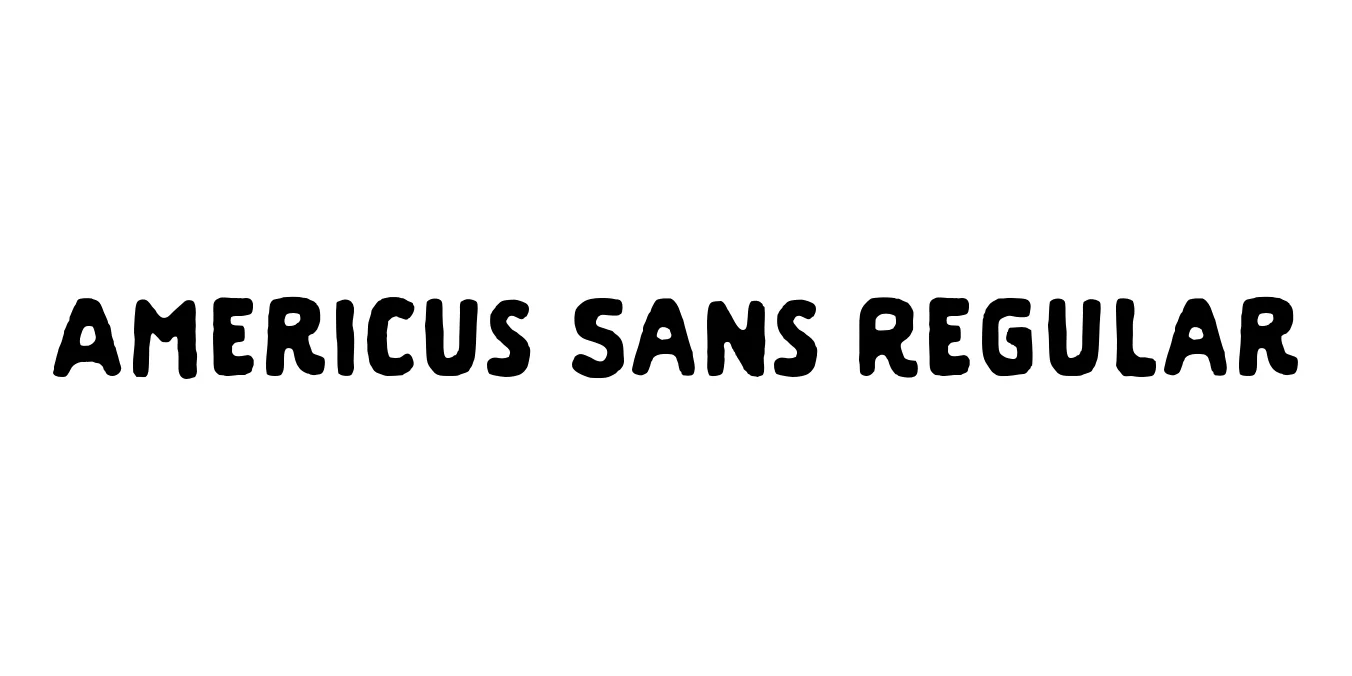
Americus Sans Regular
Designed by Vunira Design
Americus Sans Regular is a vintage-inspired typeface that captures the essence of classic American signage and heritage branding. Developed as part of the Americus Script and Sans collection, this font features clean, sturdy proportions with a slightly weathered, nostalgic feel. It is designed to work seamlessly alongside its script counterpart, offering a bold yet approachable typographic solution for projects requiring a touch of timeless craftsmanship and authenticity.
The font's versatility makes it a favorite for branding, packaging, and editorial design. Its well-spaced characters and balanced weights ensure legibility across both digital and print mediums. Whether used for retro logos or modern minimalist layouts, Americus Sans Regular provides a distinct character that evokes a sense of tradition and reliability, making it an essential tool for designers seeking a sophisticated vintage aesthetic.
Americus Sans Regular Best Uses
Ideal for creating iconic and memorable brand identities with a vintage touch.
Perfect for artisan goods, beverages, and heritage-style products.
Great for t-shirt graphics and streetwear labels looking for a classic look.
Well-suited for storefront displays and physical signage due to its high legibility.